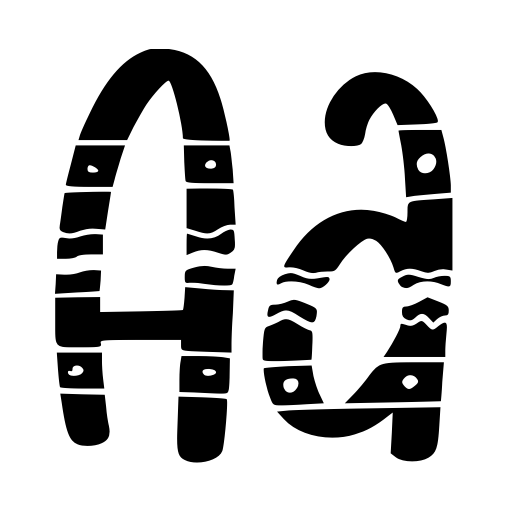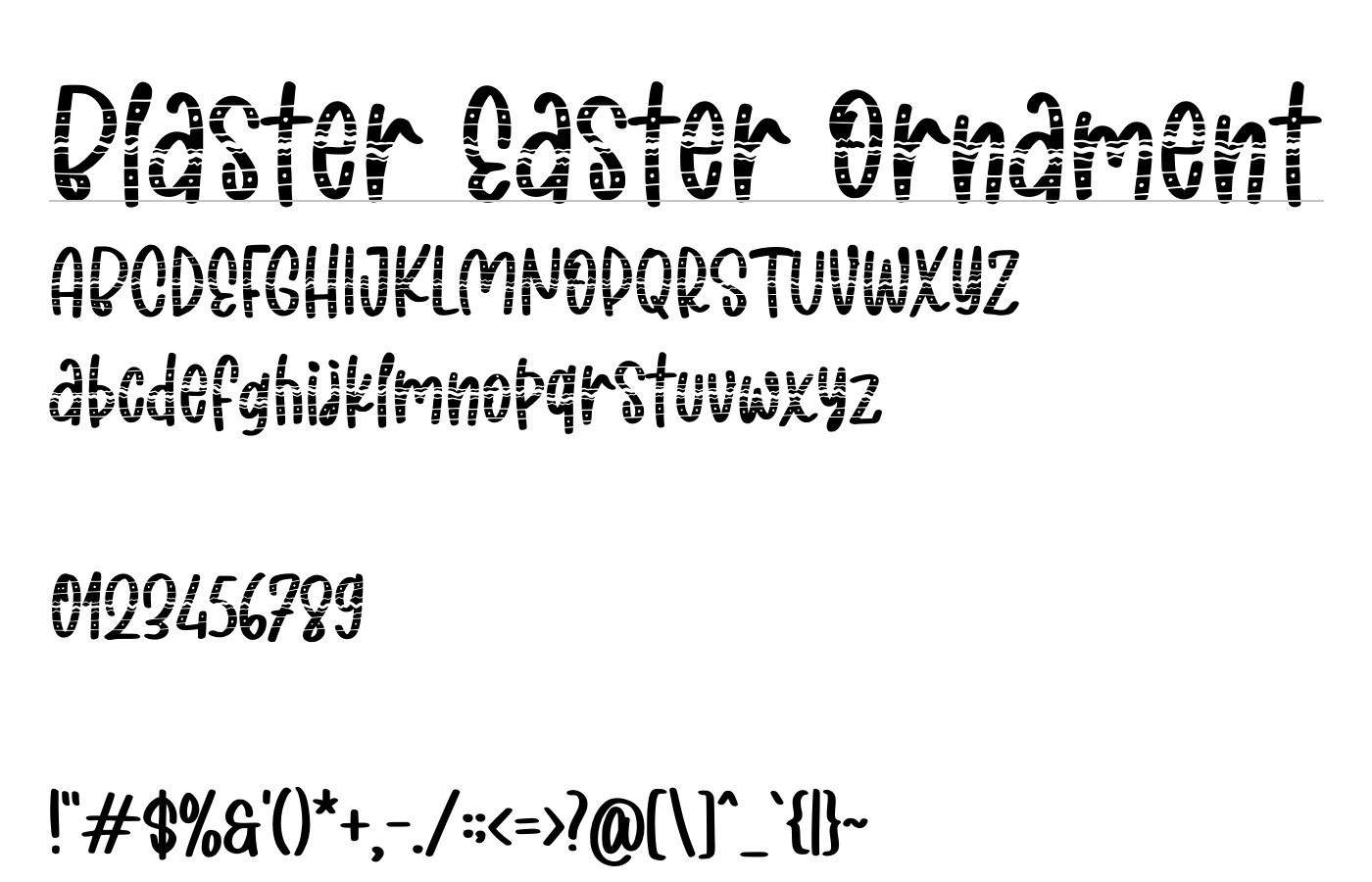
Blaster Easter is a playful and decorative sans serif font with a casual, hand-drawn feel featuring charming horizontal stripe patterns across each character. Its rounded letterforms and medium weight make it approachable and fun, ideal for festive or lighthearted designs. This font works best for creative projects, invitations, posters, and branding that seek a cheerful and whimsical vibe.
Blaster Easter Font
About Blaster Easter Font
| Font family | Blaster Easter Font |